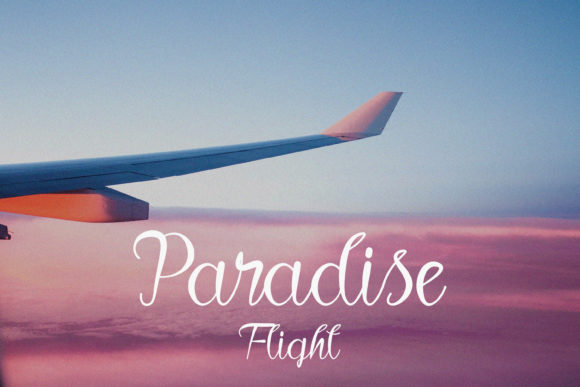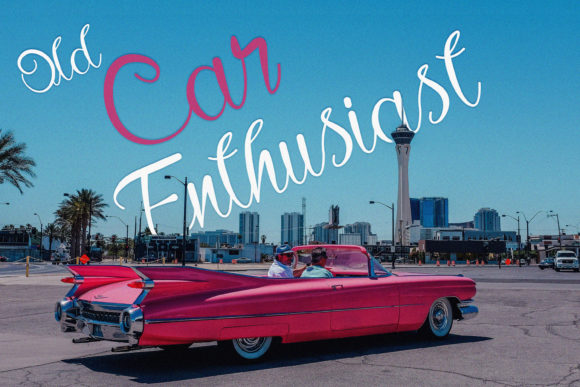
La Enthusiasto Font
About La Enthusiasto Font
“La Enthusiasto is not just a font; it’s a work of art. This unique script font is a testament to the beauty of typography. With its neat stroke shapes and clean glyphs, La Enthusiasto is designed to make your work stand out. It’s more than just a typeface; it’s a tool for creating stunning visuals that captivate and inspire.
One of the standout features of La Enthusiasto is its versatility. It is perfect for a wide range of projects, from displays and wedding invitations to logos, advertisements, and social media posts. Whether you’re a professional designer working on a major project or a hobbyist creating personalized items, La Enthusiasto is the font for you.
But La Enthusiasto is not just versatile; it’s also fashionable. With its modern and stylish design, La Enthusiasto is a font that stays ahead of the trends. It’s a font that makes a statement, a font that stands out. Whether you’re creating a logo for a cutting-edge fashion brand or designing a poster for a trendy event, La Enthusiasto is the font that will help you make a statement.
Moreover, La Enthusiasto is designed to look extraordinary in a variety of contexts. Whether it’s on a business card, a website, a billboard, or a t-shirt, La Enthusiasto shines. Its unique style and character make it a versatile and adaptable font that can elevate any design.
But the beauty of La Enthusiasto goes beyond its design. It’s also a font that’s easy to use. With its clear and legible characters, La Enthusiasto is a font that’s easy to read and understand. This makes it a great choice for designs that need to communicate clearly and effectively.
In conclusion, La Enthusiasto is a superb handwritten font that’s perfect for any project. With its unique style and versatility, it’s a font that can make any design stand out. Whether you’re a professional designer or a hobbyist, La Enthusiasto is a font that’s worth checking out.”